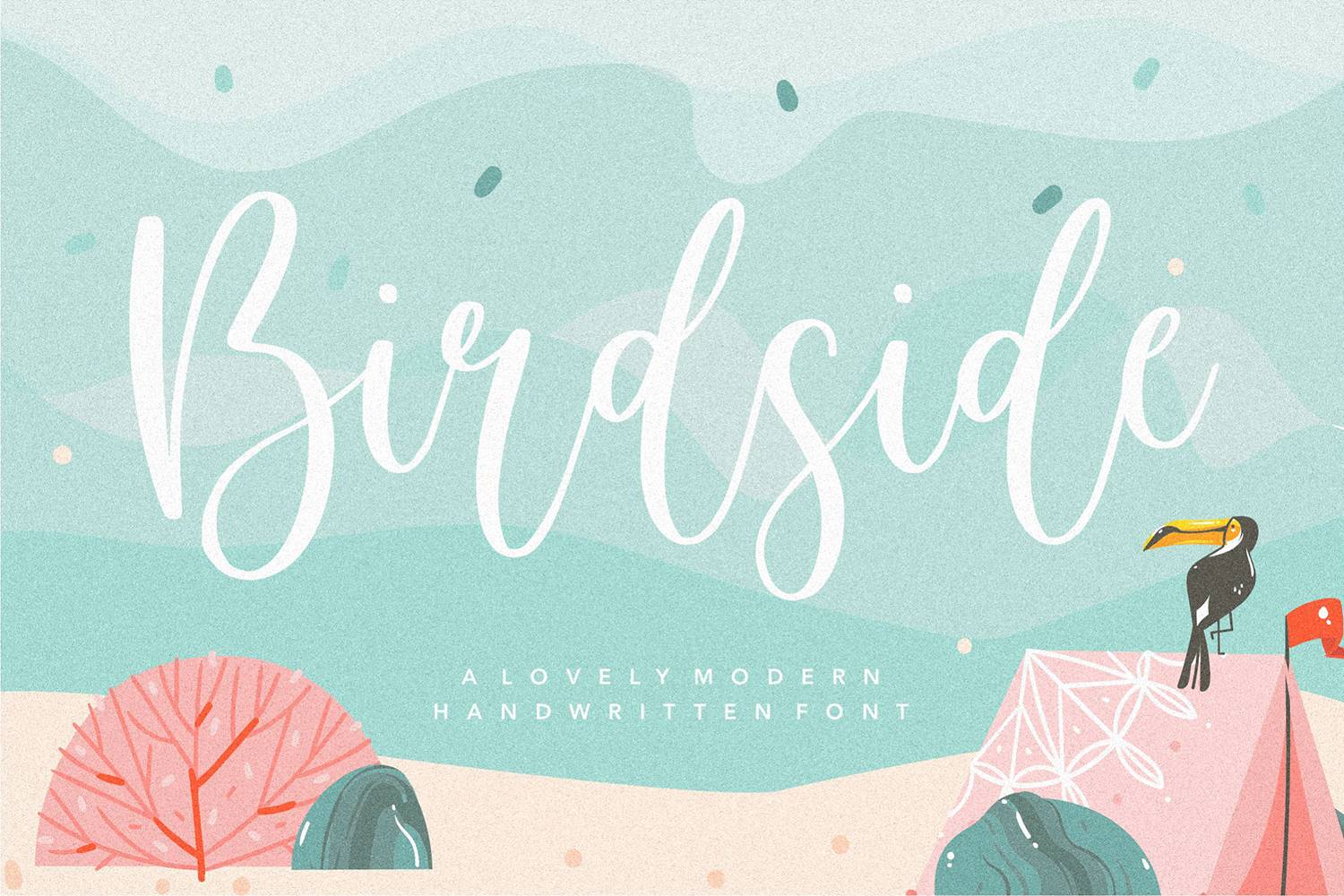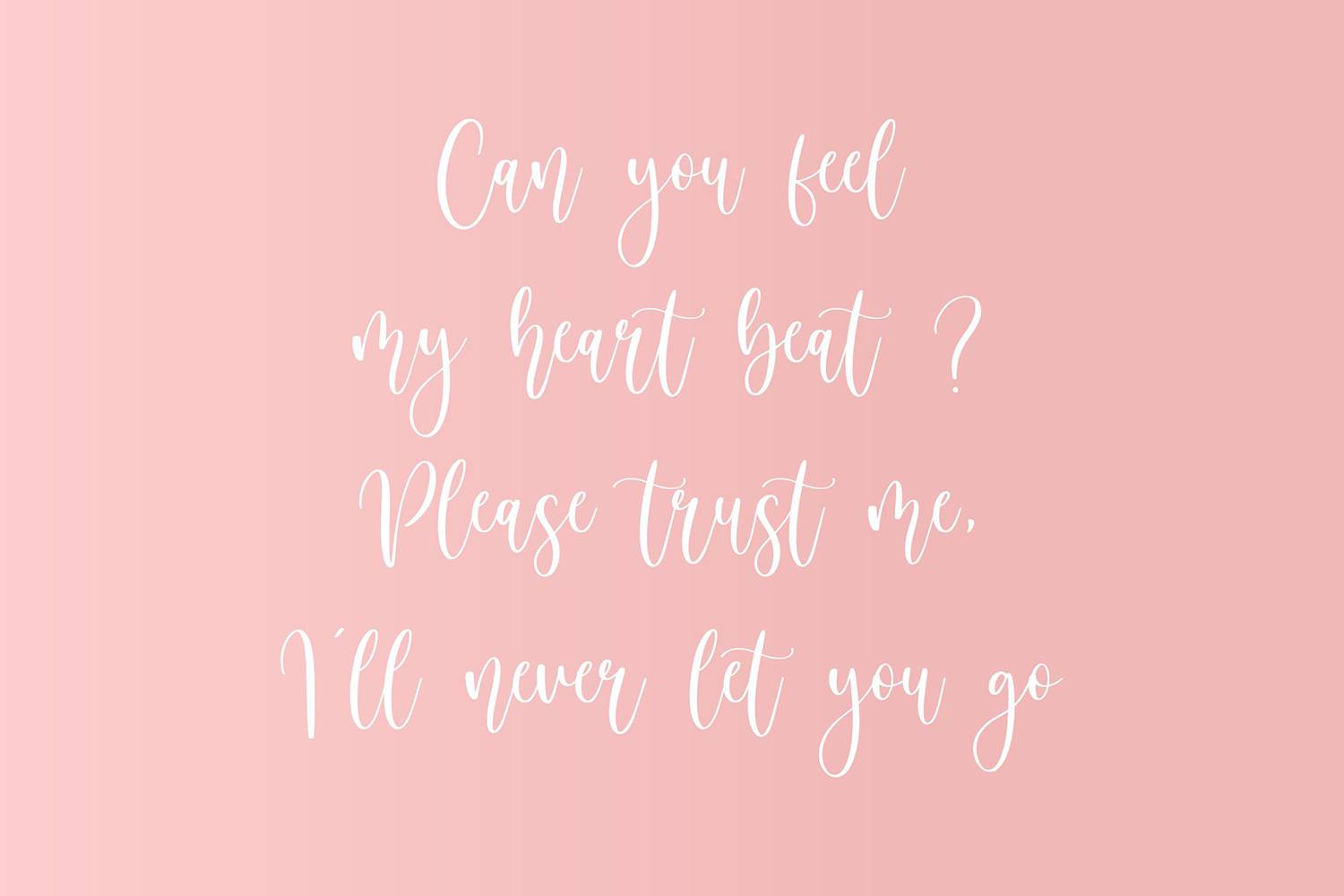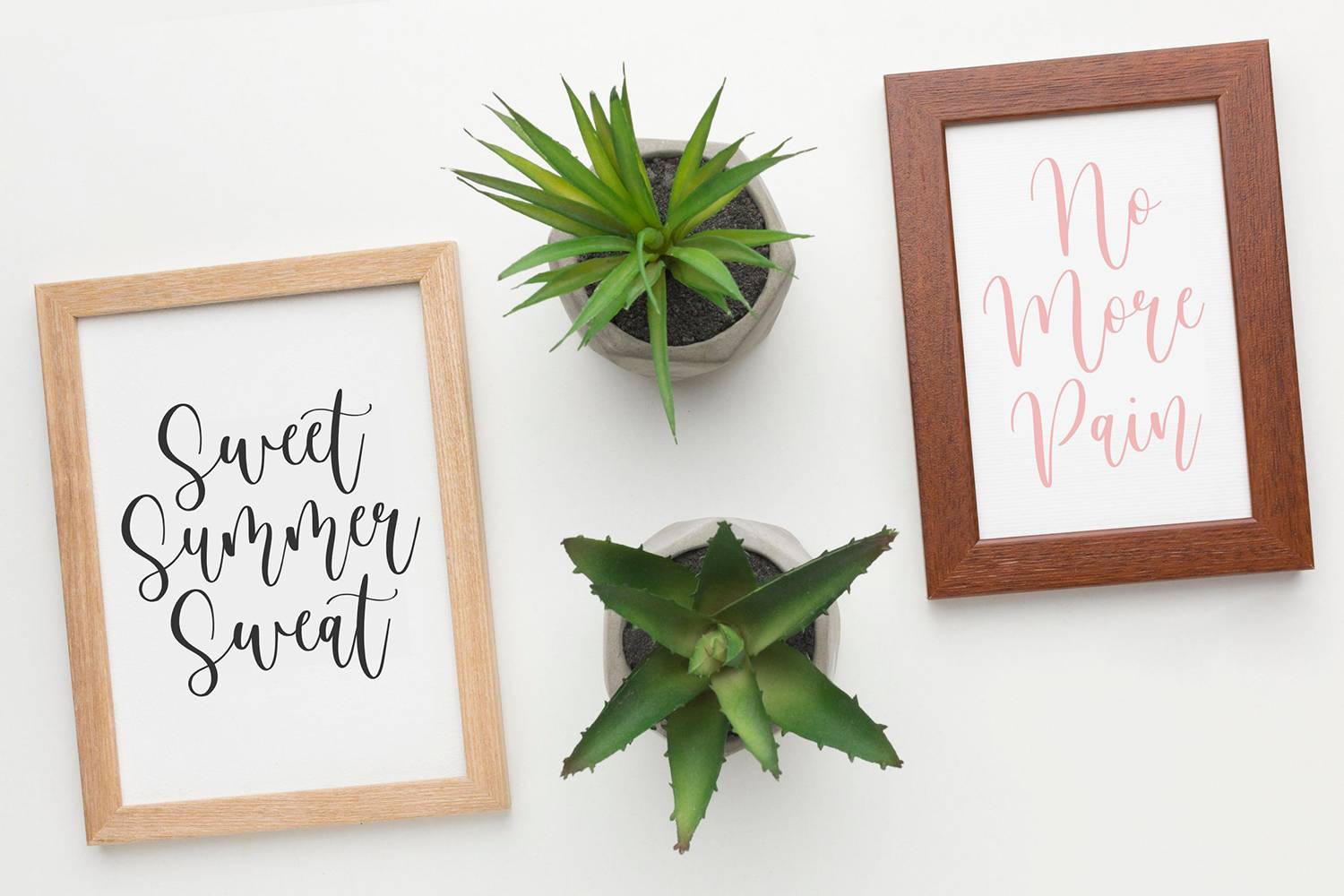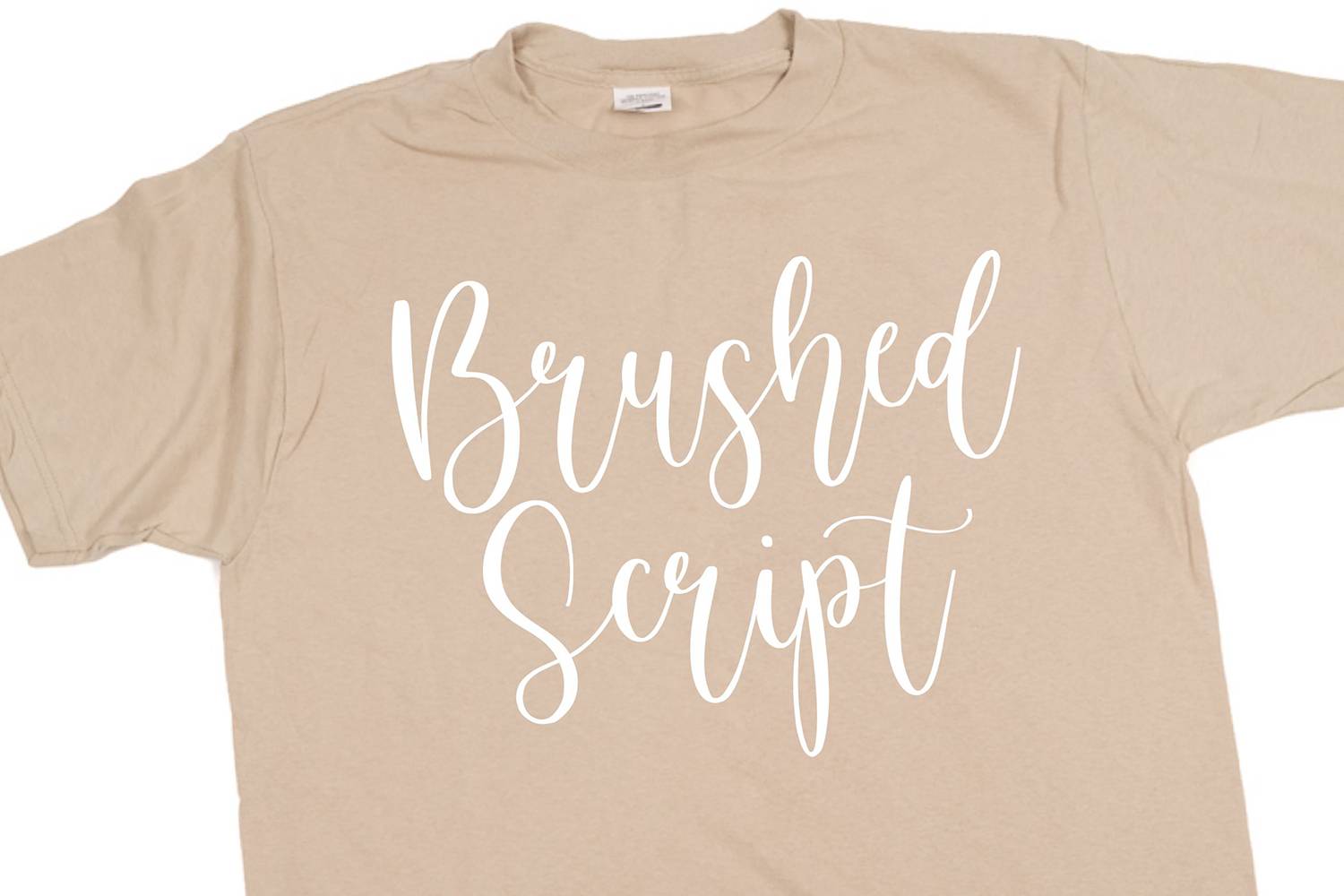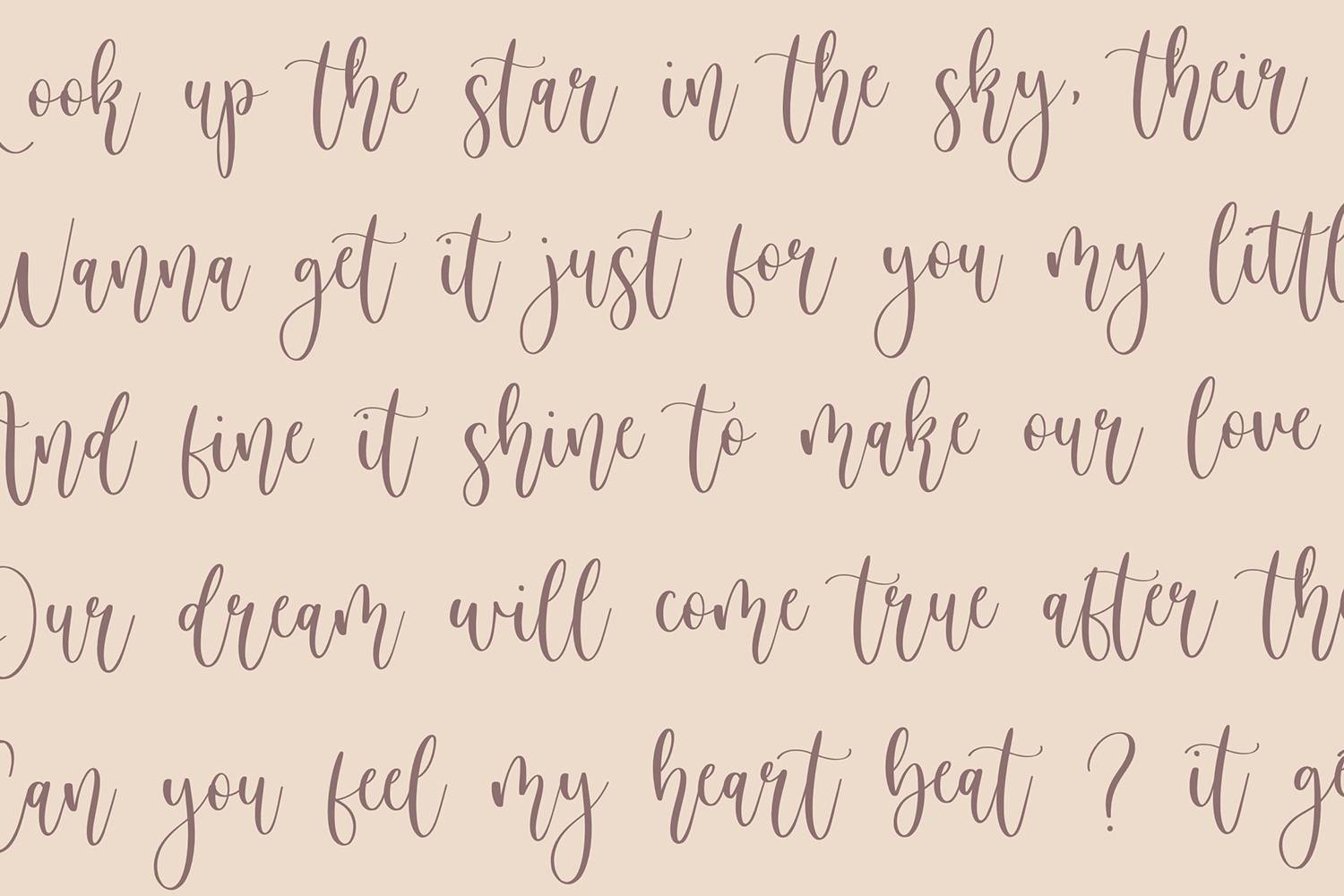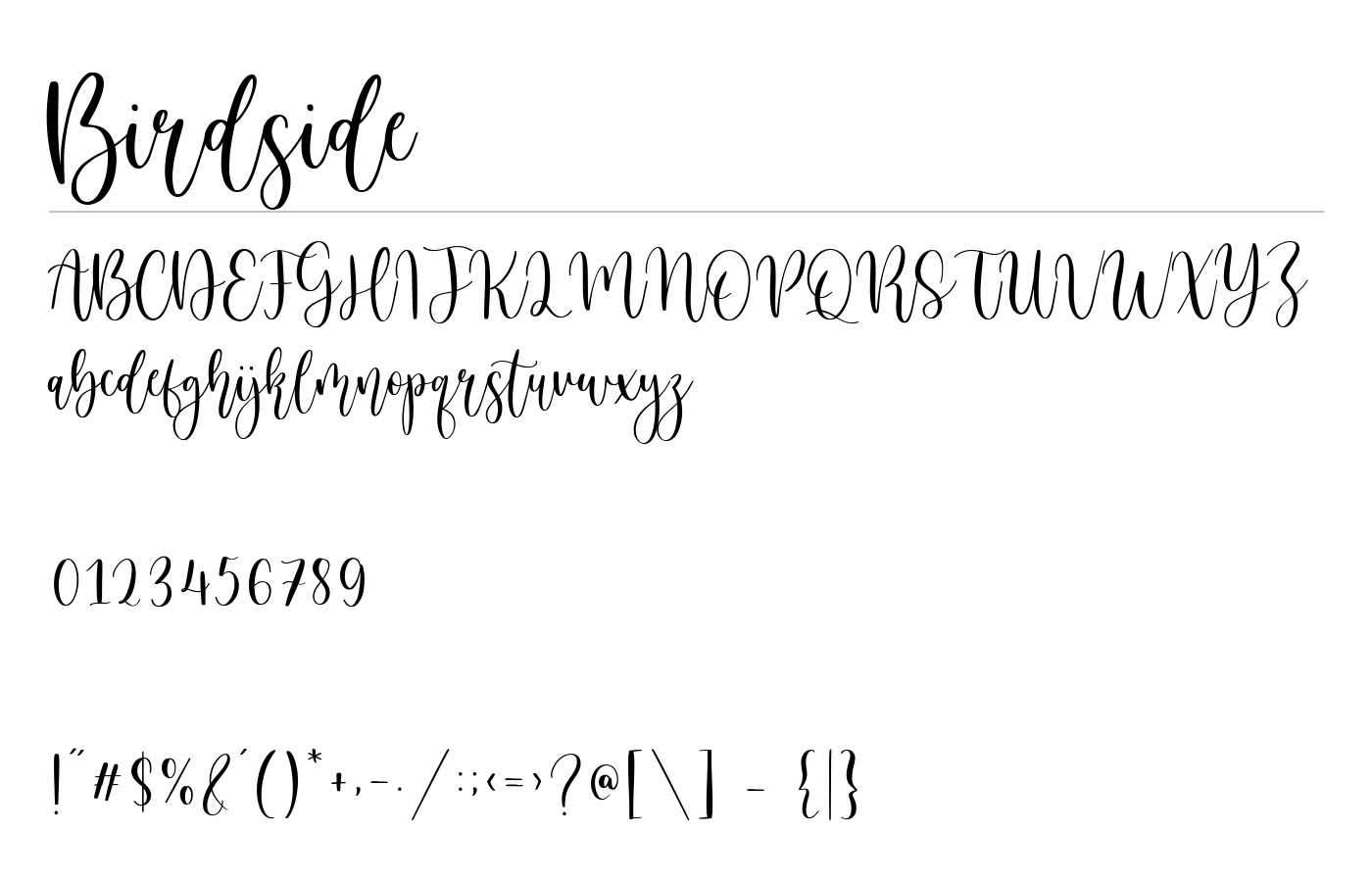
Birdside is an elegant script font with a delicate and flowing style, featuring slender strokes and graceful curves that give it a whimsical yet refined feel. Its tall x-height and varying stroke widths create a light, airy appearance, making it ideal for invitations, branding, and any design that calls for a touch of sophistication and charm. This font works beautifully in headlines, logos, and decorative text where a personal, handcrafted quality is desired.
Birdside Font
About Birdside Font